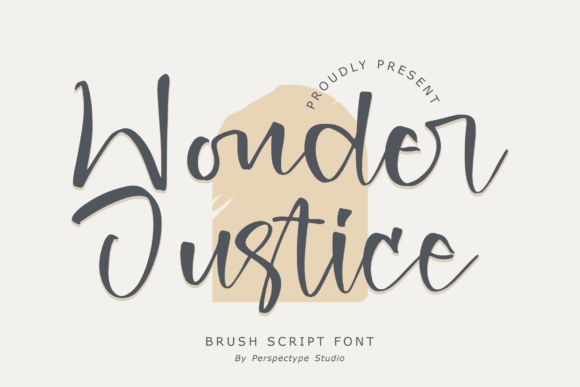
About Wonder Justice
Wonder Justice is a gorgeous and fashionable handwritten font, crafted to give your headlines and logotype projects a stylish touch. This font reads as strong, confident, and dynamic and can add tons of nostalgic character to your designs.